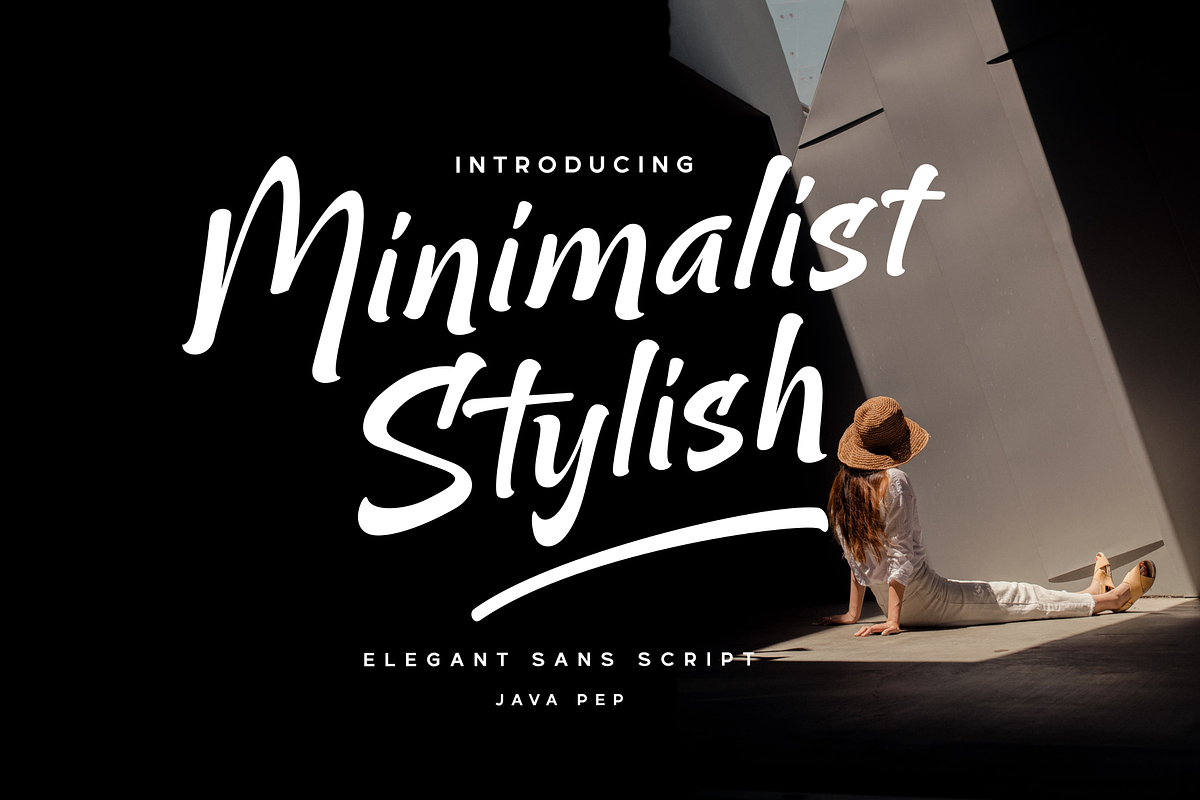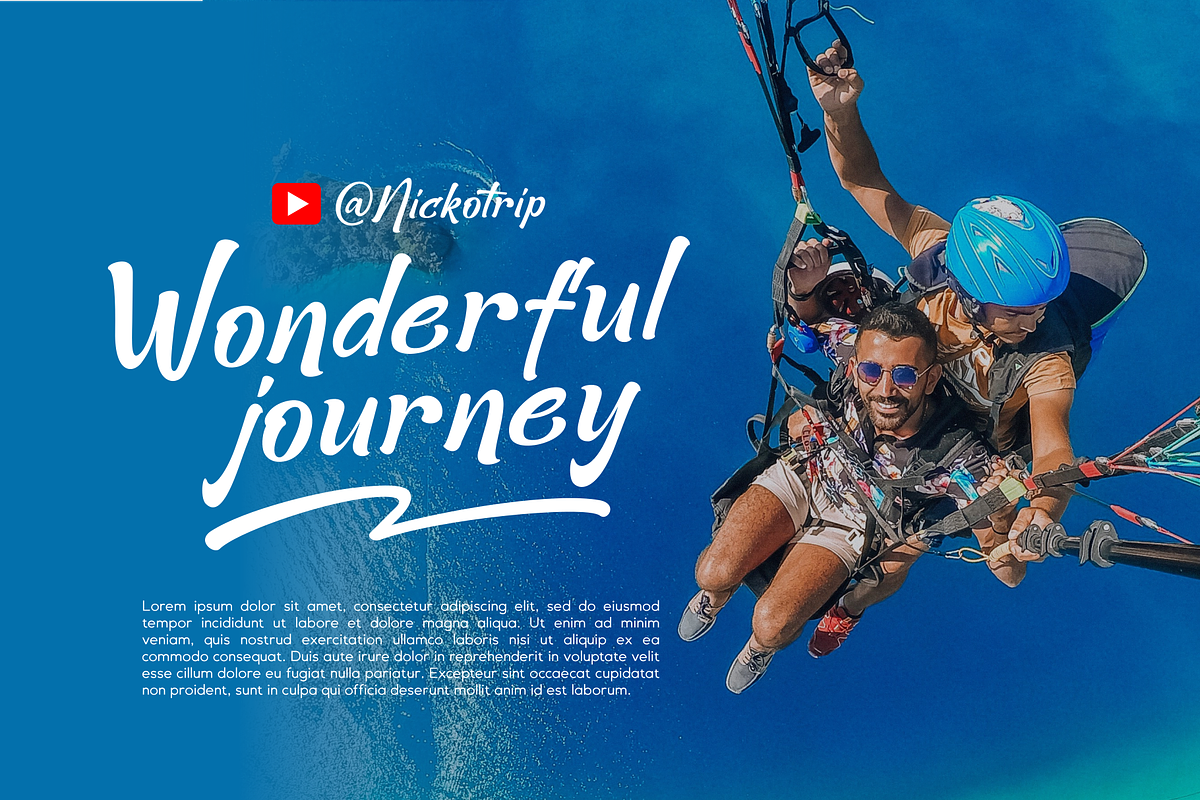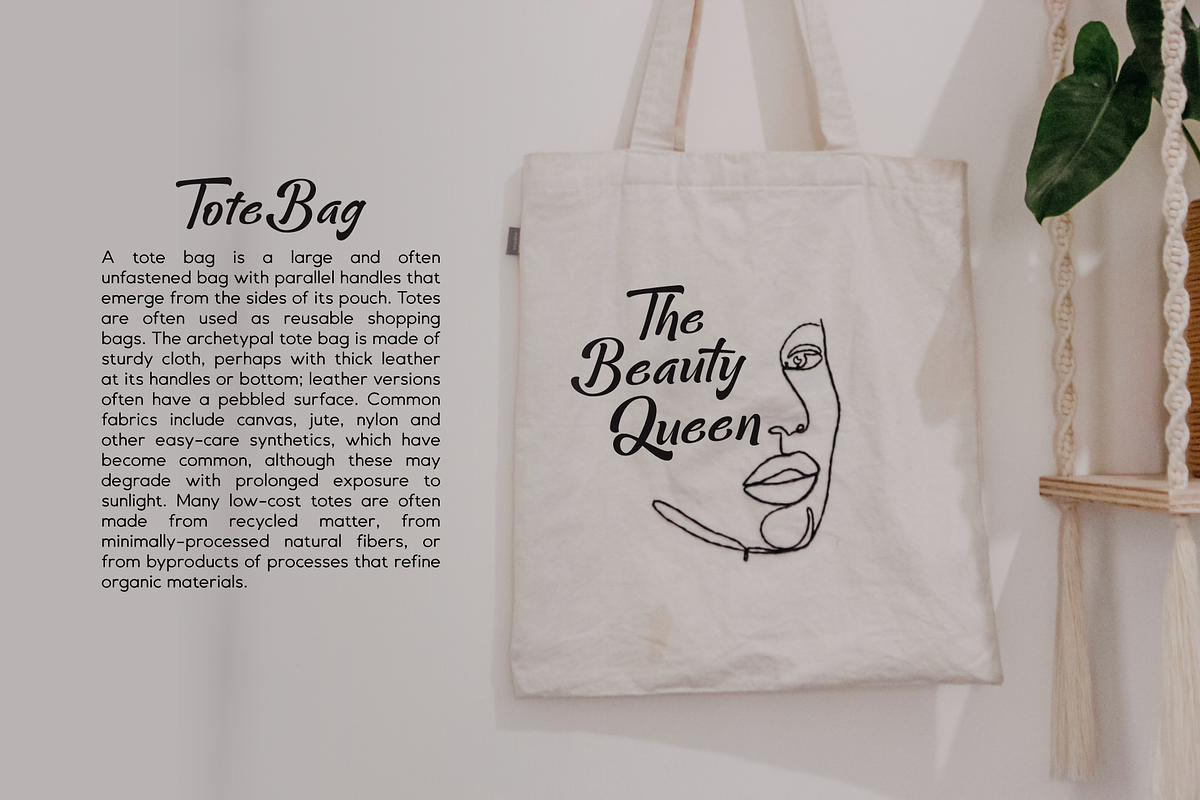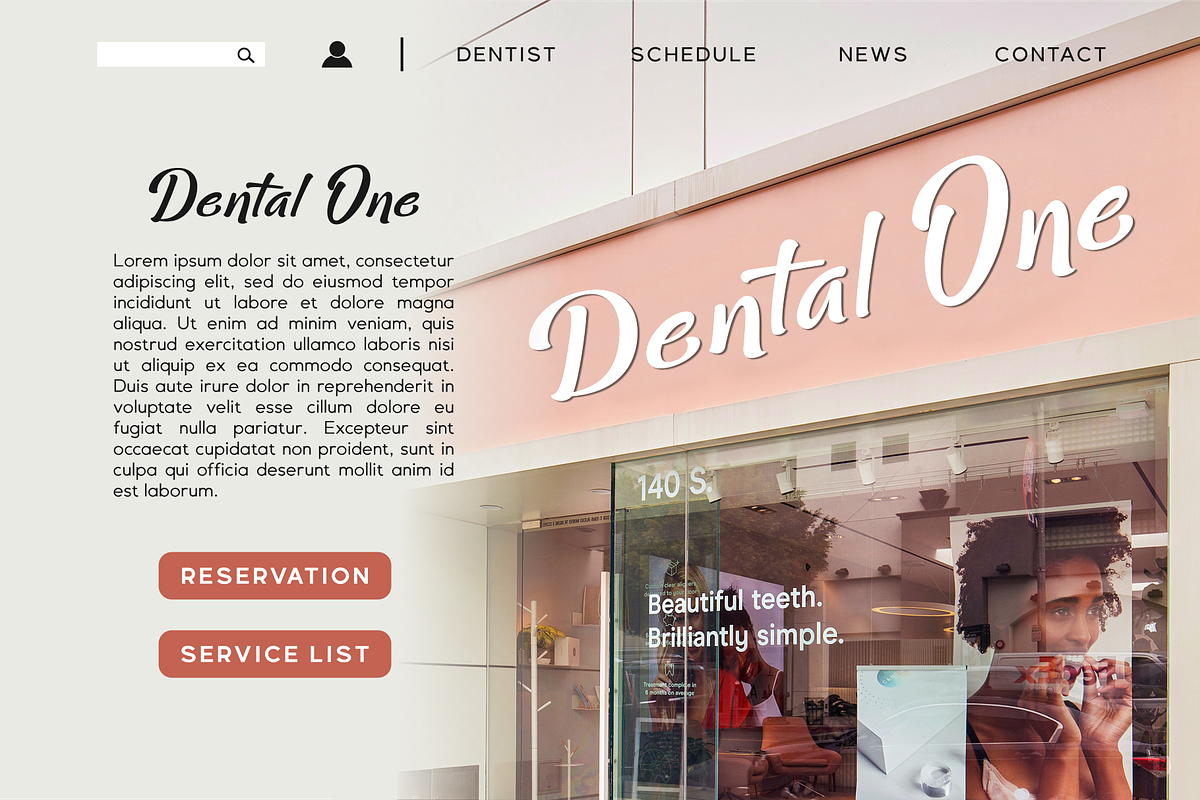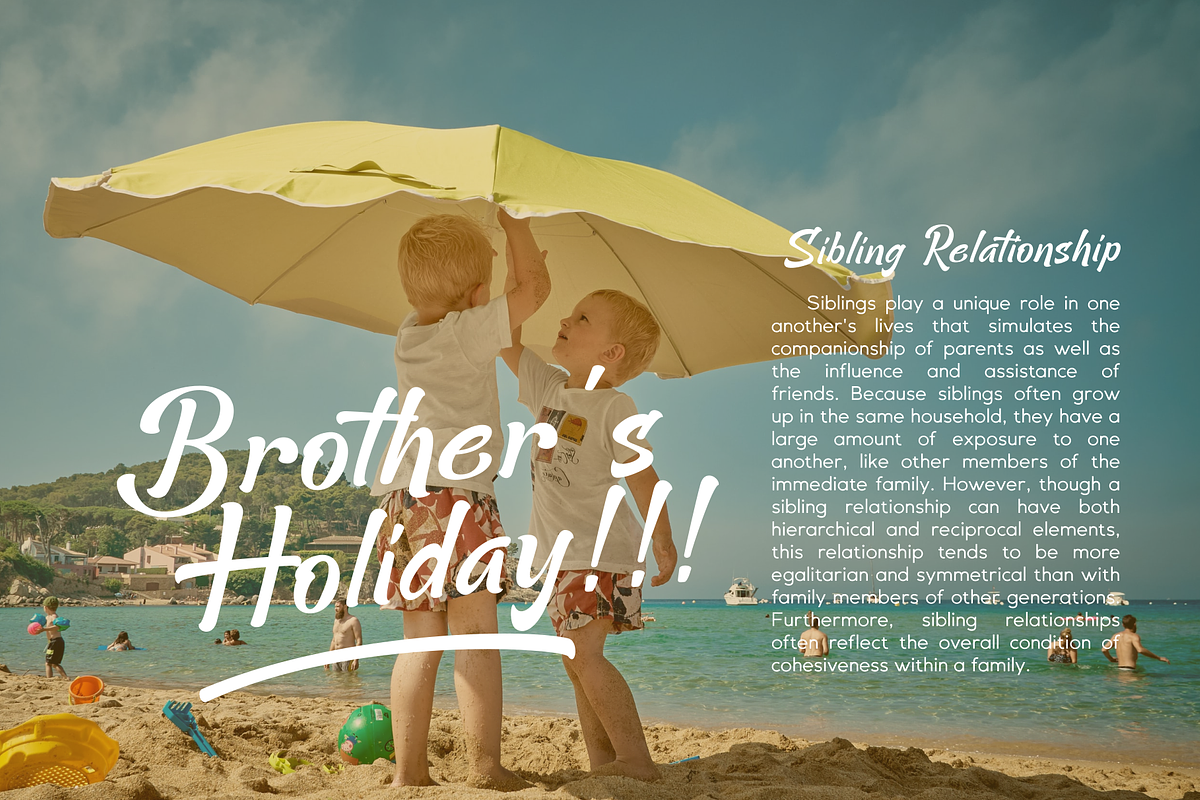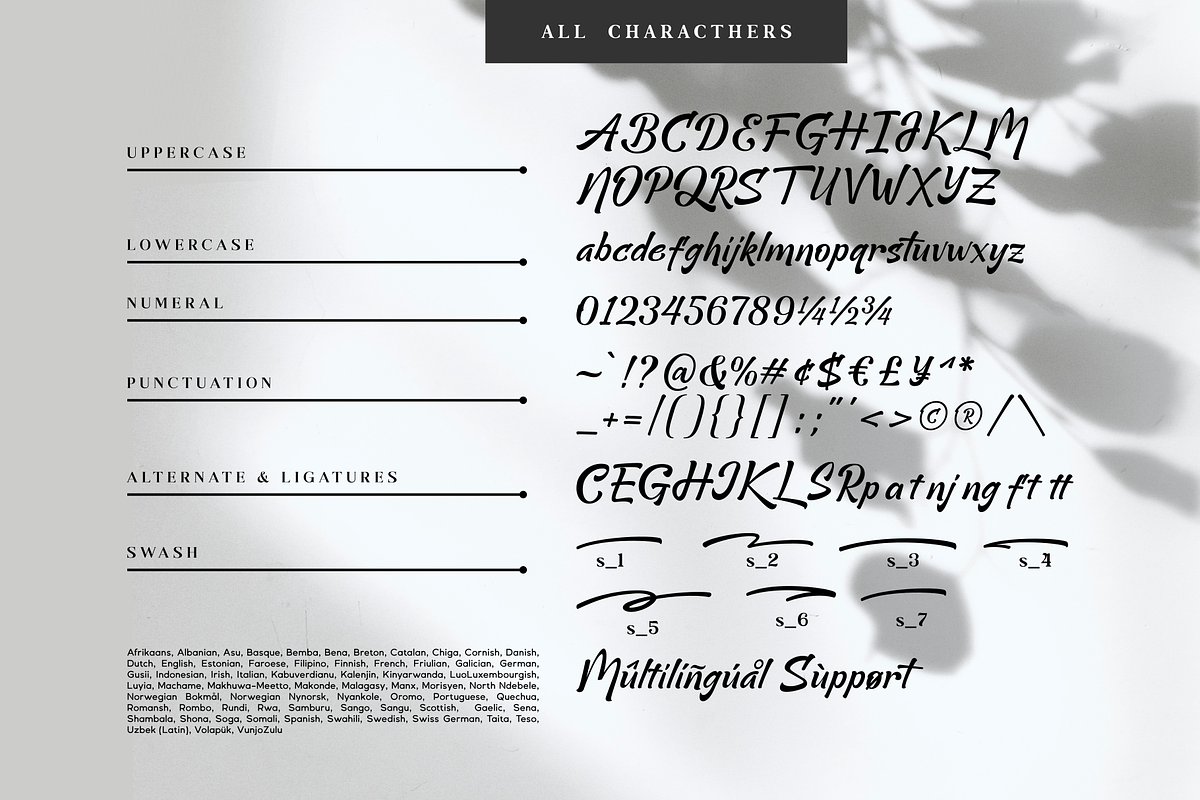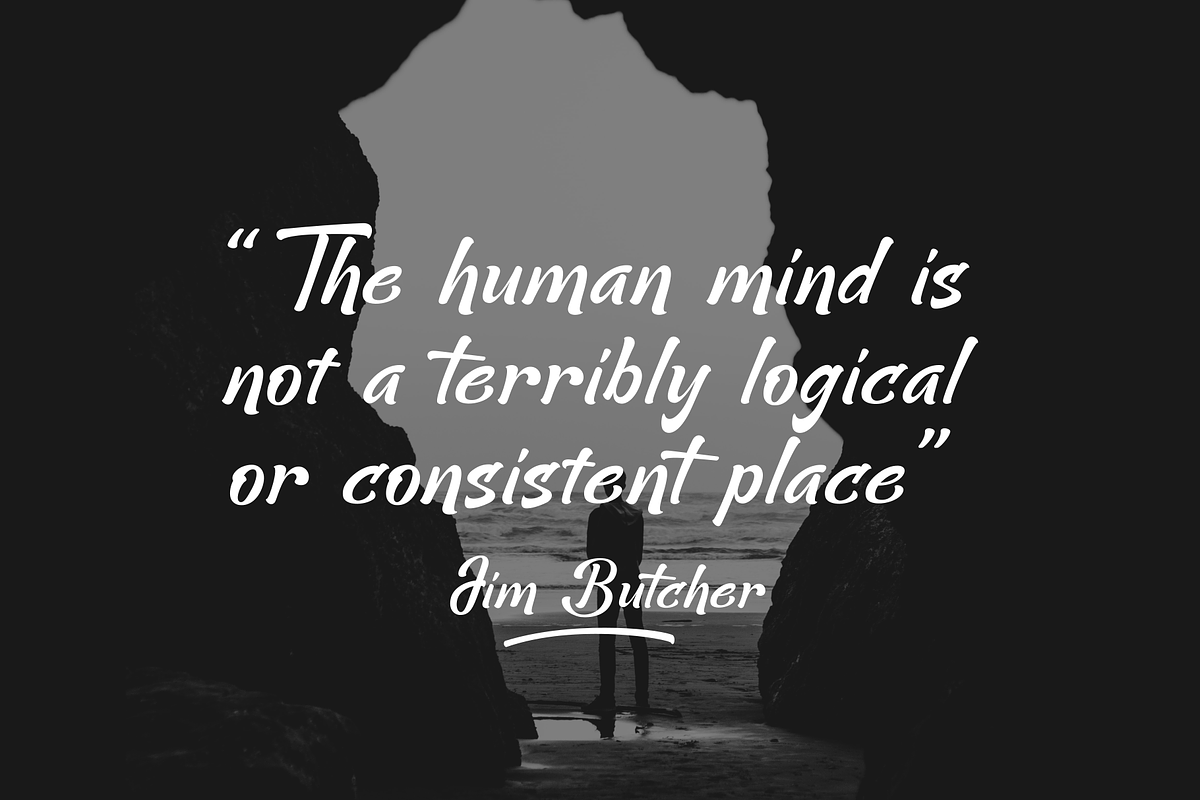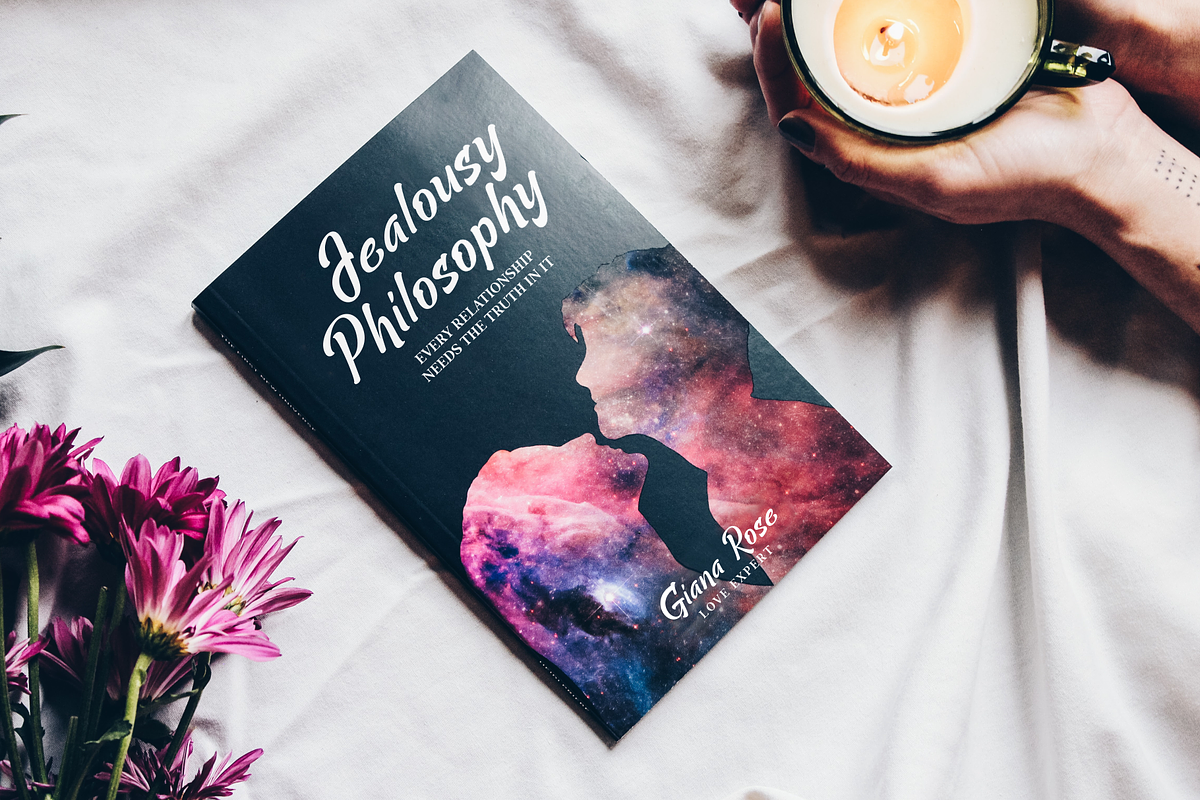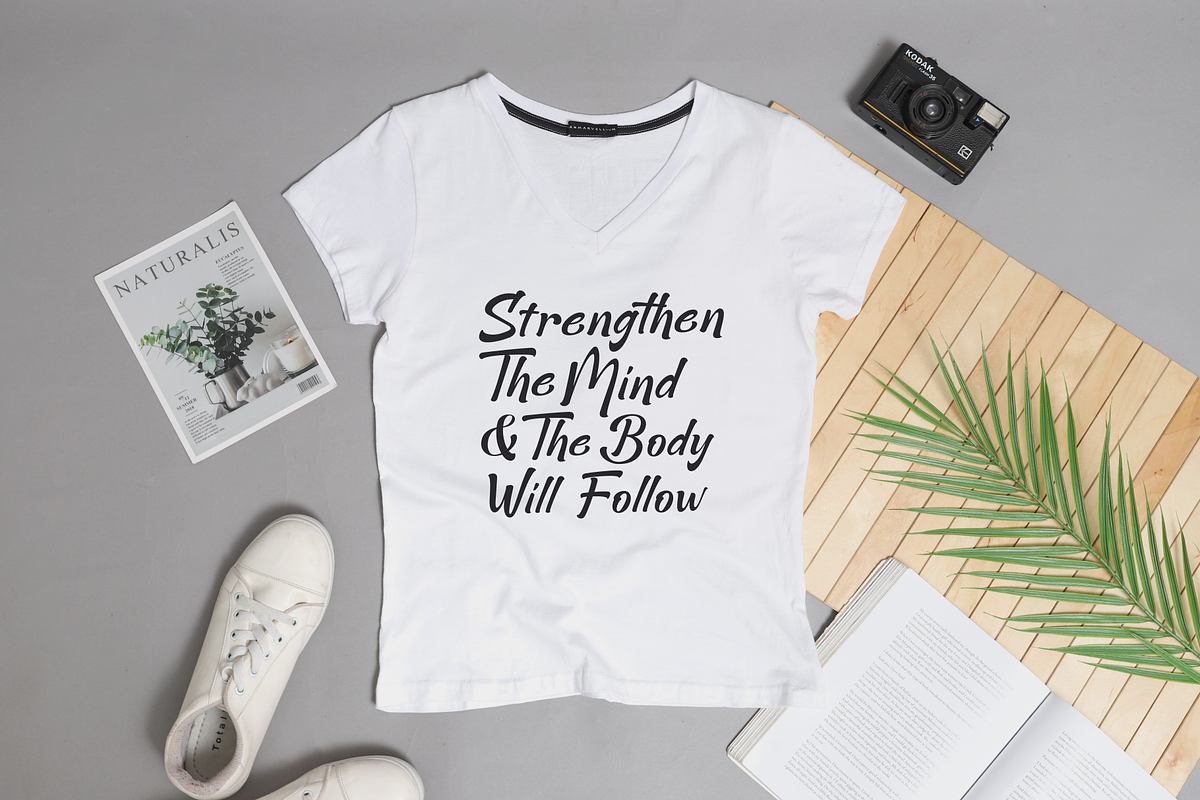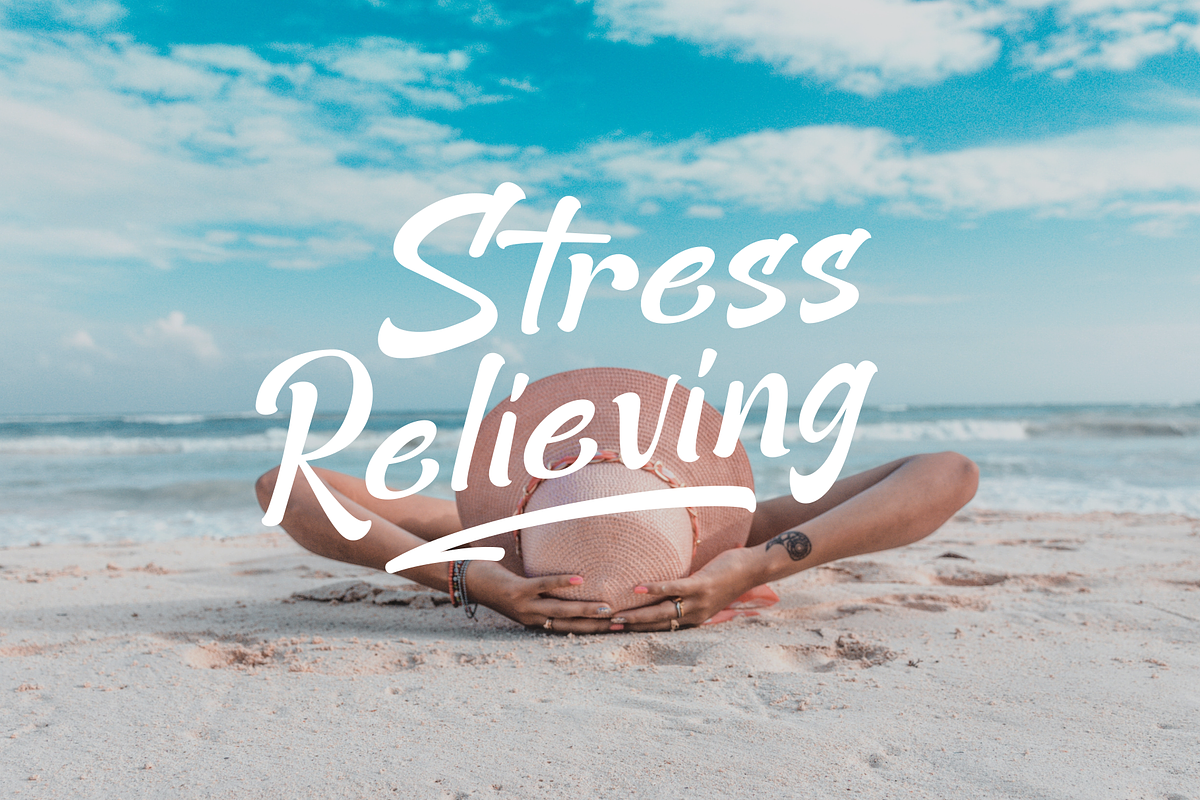
Minimalist Stylish - Sans Script
Proudly present the newest product Minimalist Stylish font. That font is inspired by brush script and modern sans, Minimalist Stylish font already has a feature in alternate, ligature, swash, and multilingual support. Minimalist Stylish font is perfect for headlines, logotypes, taglines, quotes, publishing, apparel, etc.
- Uppercase, lowercase, punctuation, and numeral
- Multilingual Support in more than 25 languages